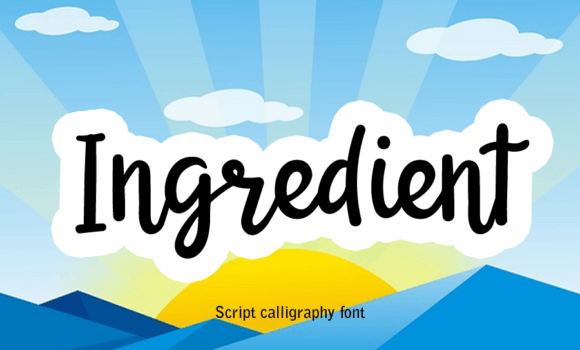
Ingredient Font – Free Download Introduction to Ingredient Font Ingredient is a modern and friendly handwritten font. 📸 Preview Gallery 4 images 📌 Product Name Ingredient Font 👤 Author Abadi letter 📂 Category Explore ⬇️ Download Ingredient Font FREE Free